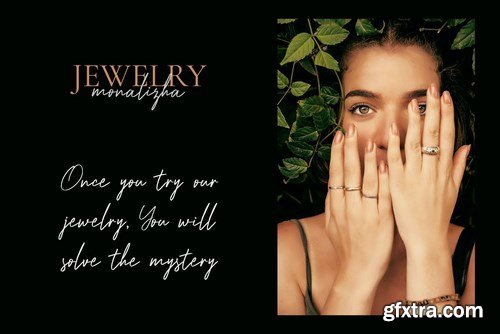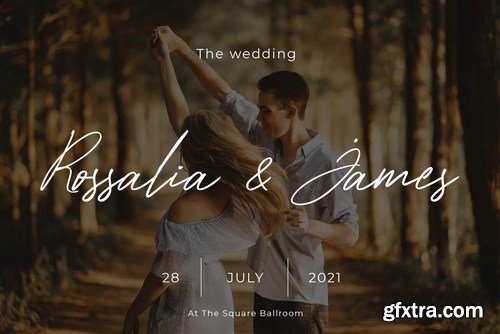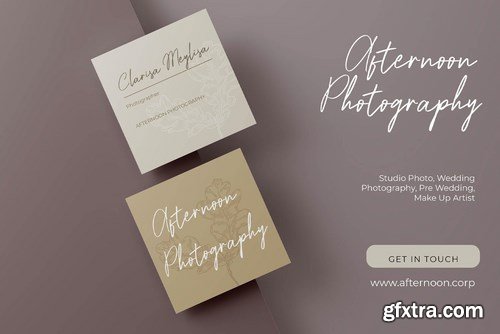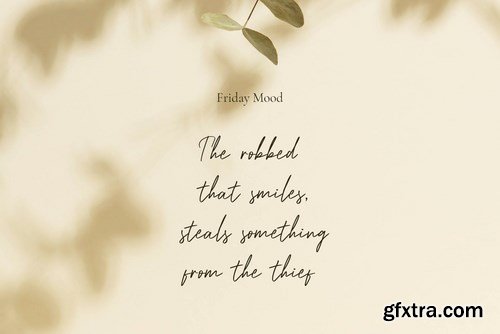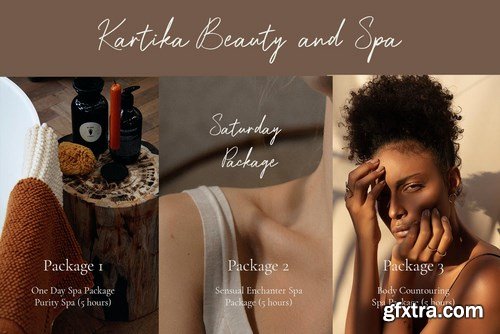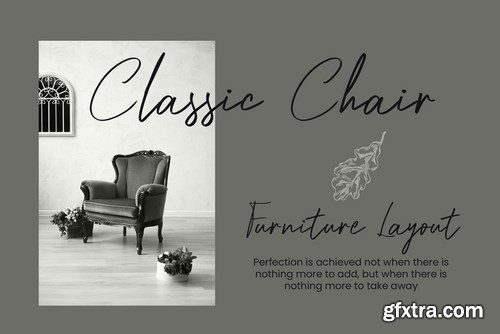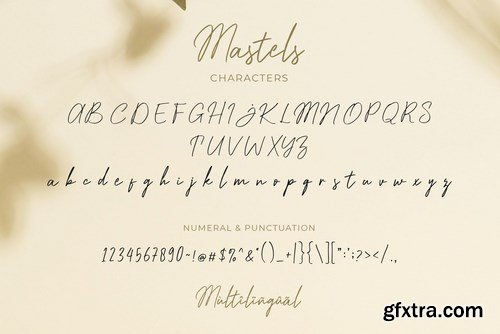
Mastels - Handwritten Script is a handwritten script typeface based on the expression of real handwriting. Mastels - Handwritten Script will work perfectly for fashion, e-commerce brands, trend blogs, wedding boutiques or any business that wants to appear upscale and chic.
Mastels - Handwritten Script also Suitable for Logo, greeting cards, quotes, posters, branding, name card, stationary, design title, blog header, art quote, typography, art, modern envelope lettering or book design, happening style like handdrawn design or watercolor design theme, craft design, any DIY project, book title, or any purpose to make your art/design project look pretty and trendy.
Features : Uppercase & Lowercase Standard & Special Ligatures Numerals & Punctuations (OpenType Standard) Accents/Multilingual characters (AÀÁÂÃÄÅCÇDÐEÈÉÊËIÌÍÎÏNÑOØÒÓÔÕÖUÙÜÚÛWYÝŸ?ŸÆŒßÞ) PUA Encoded